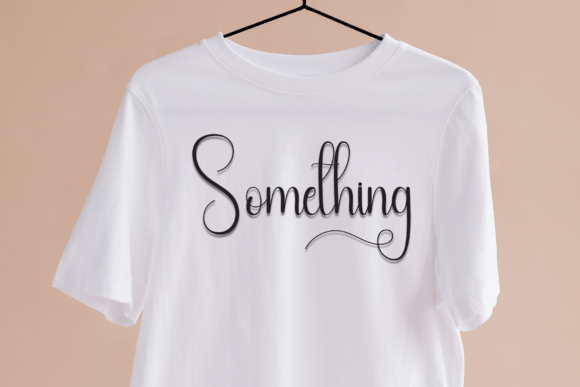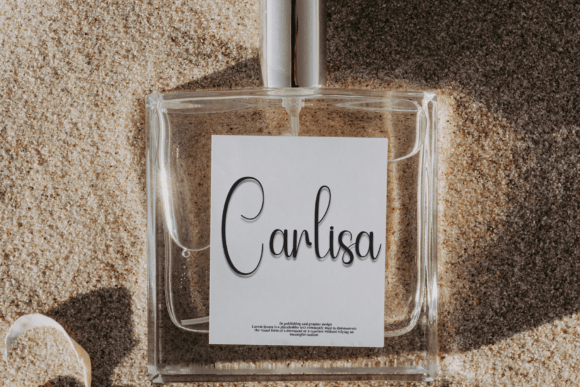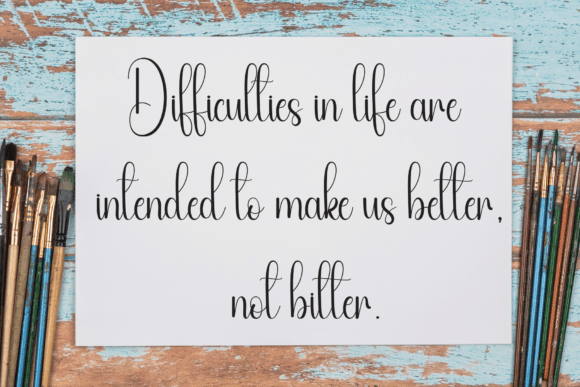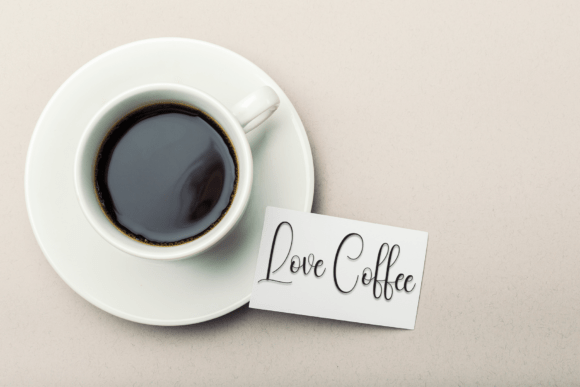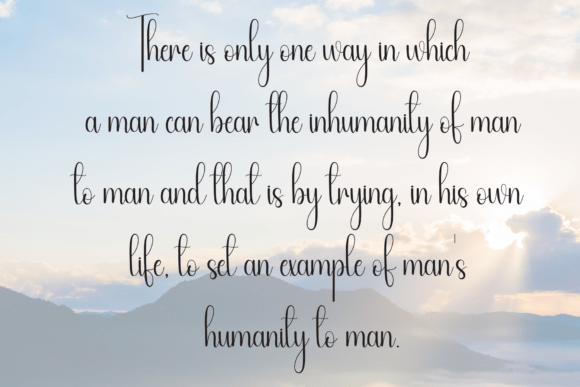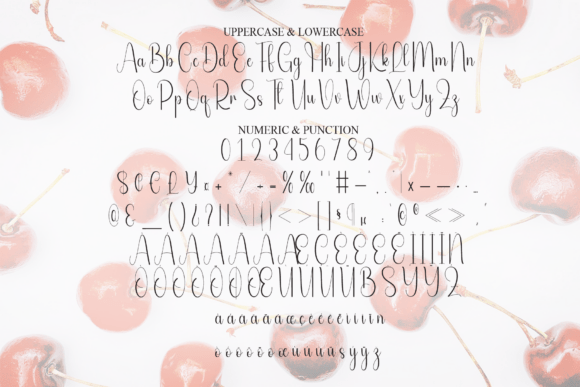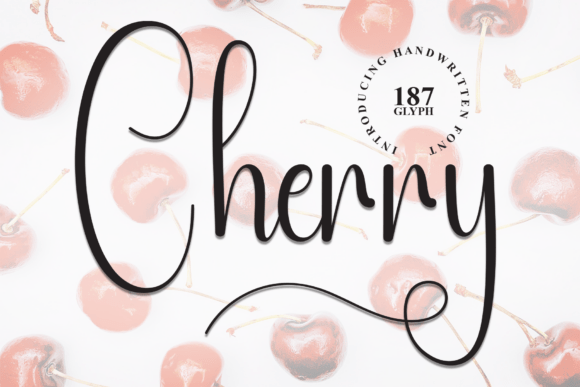
Introducing Cherry Font: Elevate Your Designs with Elegance and Modern Flair
In the world of typography, few fonts manage to strike a balance between elegance and modernity as effortlessly as Cherry Font. This stylish handwritten script font is designed to bring a touch of sophistication and warmth to any project, making it an ideal choice for designers and crafters looking to elevate their creations. With its flowing strokes and organic curves, Cherry Font is the perfect blend of refinement and charm.
The Characteristics of Cherry Font
Cherry Font is characterized by its beautiful, flowing script that exudes elegance and poise. Its modern flair sets it apart from more traditional fonts, making it versatile enough to be used in a variety of contexts, from branding and invitations to social media and digital marketing materials. The font’s organic curves and smooth lines give it a personal, approachable feel that resonates with audiences and adds a refined touch to any design.
Why Choose Cherry Font?
There are several reasons why Cherry Font stands out as a top choice for designers and crafters:
• Elegance and Sophistication: Cherry Font brings a level of sophistication to designs that is hard to achieve with other typefaces. Its elegant strokes and refined appearance make it perfect for high-end branding, luxury invitations, and premium product packaging.
• Modern Flair: The font’s modern twist ensures that it remains fresh and relevant, even in today’s fast-paced digital landscape. Its contemporary feel makes it an excellent choice for social media graphics, blog headers, and website designs.
• Versatility: Cherry Font is incredibly versatile, suitable for a wide range of applications, including but not limited to, logos, business cards, wedding invitations, and advertising materials.
• Easy to Read: Despite its elegant and cursive nature, Cherry Font remains highly legible, ensuring that messages are conveyed clearly and effectively.
Applications of Cherry Font
The versatility of Cherry Font makes it suitable for numerous applications:
• Branding: Use Cherry Font to create memorable logos and brand identities that stand out from the competition.
• Invitations: Add a touch of elegance to wedding invitations, birthday parties, and other special event invitations.
• Social Media: Elevate your social media presence with eye-catching graphics and posts that utilize Cherry Font’s unique charm.
• Digital Marketing: Incorporate Cherry Font into your website design, email newsletters, and digital advertisements to create a cohesive and sophisticated brand image.
Tips for Using Cherry Font Effectively
To get the most out of Cherry Font, consider the following tips:
• Pair with Complementary Fonts: Combine Cherry Font with clean, sans-serif fonts for a balanced and harmonious design.
• Use for Headings and Titles: Cherry Font is perfect for headings and titles, where its elegance and modernity can be showcased.
• Experiment with Colors: While Cherry Font looks stunning in classic black and white, don’t be afraid to experiment with colors that match your brand’s palette.
Cherry Font is a stylish and versatile handwritten script font that brings a unique blend of elegance and modern flair to any project. Its flowing strokes, organic curves, and refined appearance make it an ideal choice for designers and crafters looking to add a personal, sophisticated touch to their designs. Whether you’re working on branding, invitations, social media, or digital marketing materials, Cherry Font is sure to elevate your creations and leave a lasting impression on your audience.